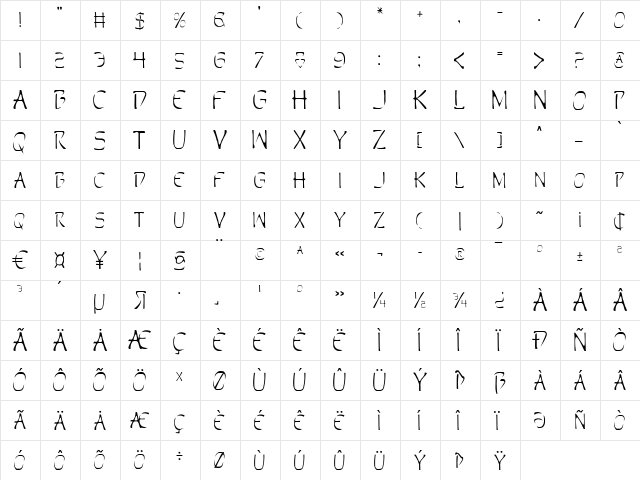
Perdition Regular Font Preview
Perdition Regular
Perdition Regular Font Details
Design Context for Perdition Typeface
Perdition is a composed and adaptable typeface that performs quietly and consistently across a wide range of design contexts.